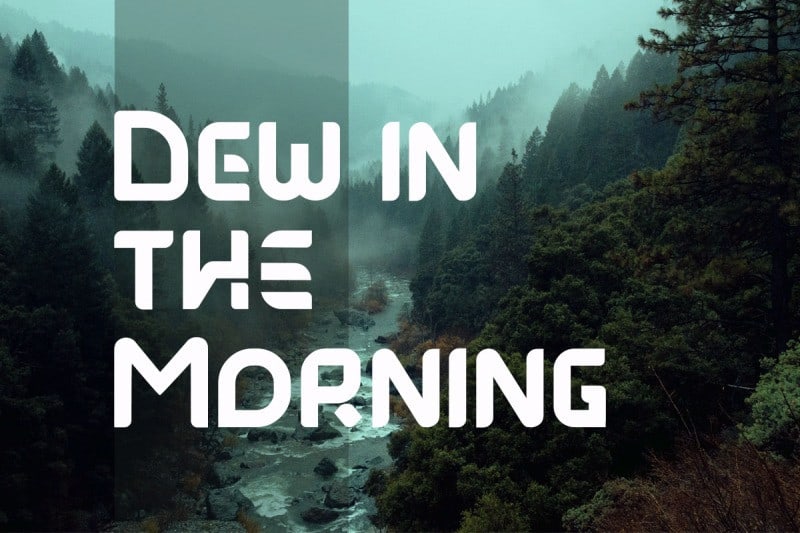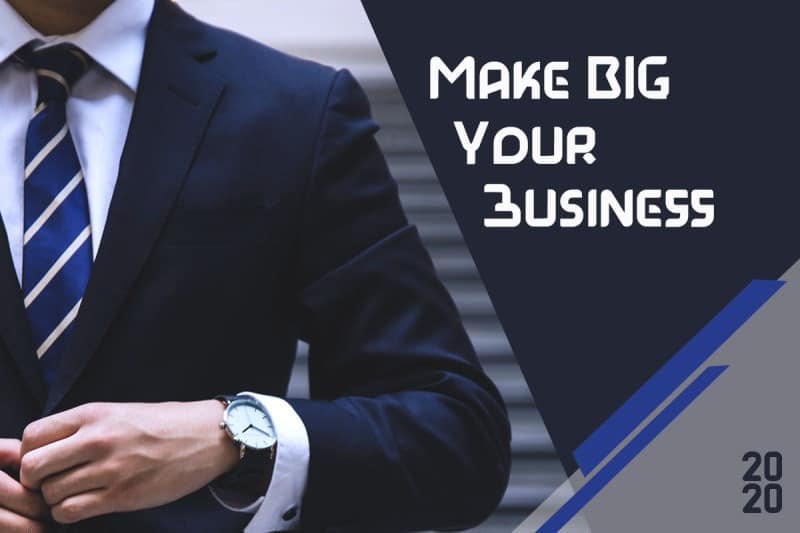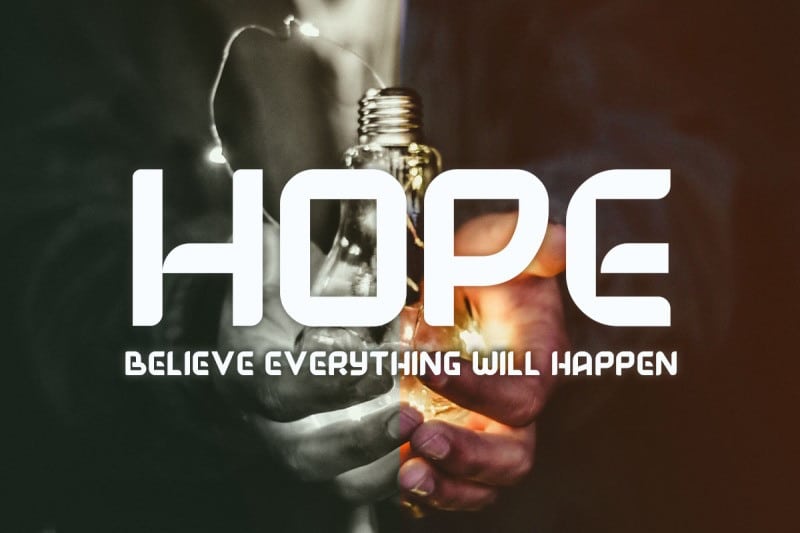
Monta Display Font is a fresh and unique typeface, they are best used for branding, print design, title headings & so much more. It’s designed and shared by Letterdy studio.This is a display font with the modern style, there are 2 types of fonts, namely monta regular and monta italic